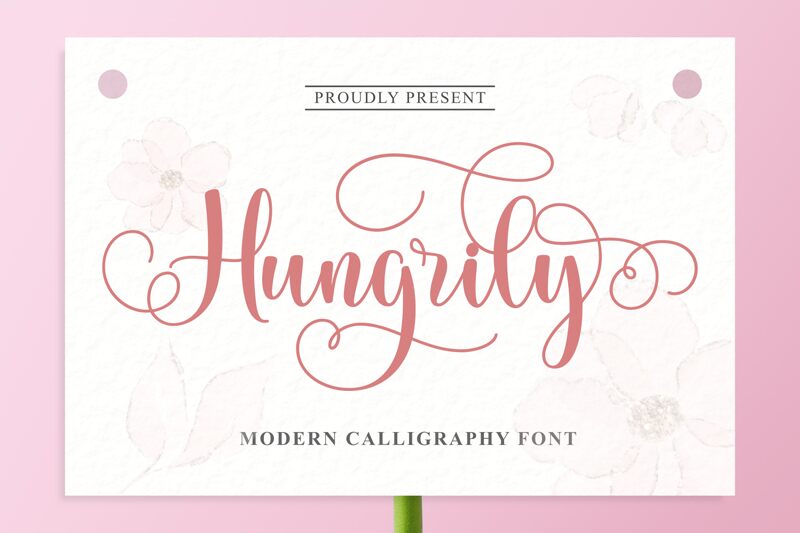
Hungrily_DEMO
Hungrily is a captivating calligraphic font crafted by Makashi / MaqsumKS. This elegant script exudes a sense of graceful refinement, its flowing strokes and subtle flourishes evoking a captivating sense of movement and artistry. The font's distinctive character patterns and harmonious rhythm effortlessly blend traditional calligraphic techniques with a contemporary aesthetic, making it a versatile choice for a wide range of design applications.
Hungrily's versatility shines through its ability to elevate various design contexts, from high-end branding and packaging to editorial layouts and creative typography. Its expressive qualities lend themselves beautifully to eye-catching headlines, impactful logotypes, and visually striking text compositions, allowing designers to infuse their projects with a touch of timeless sophistication and artistic flair.
Hungrily, designed by Makashi / MaqsumKS.